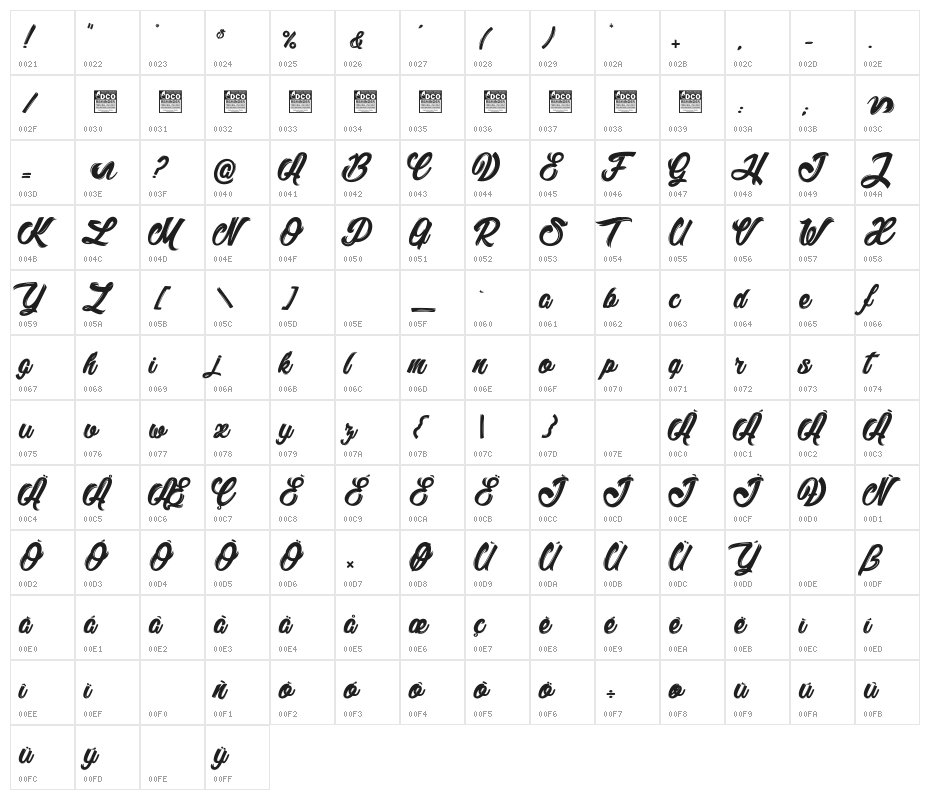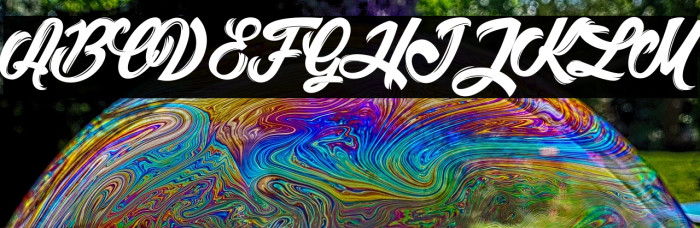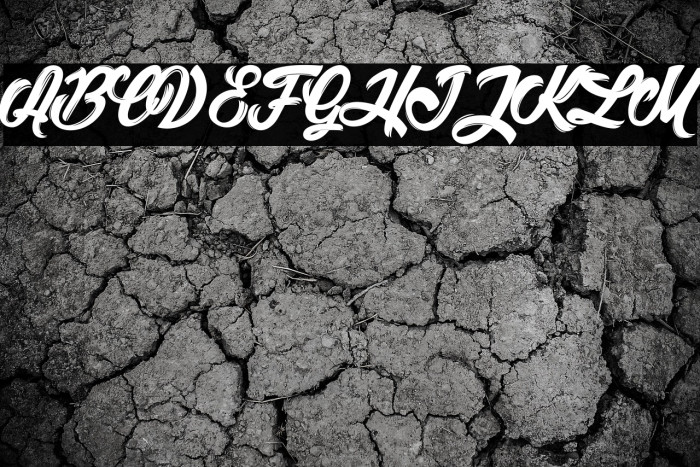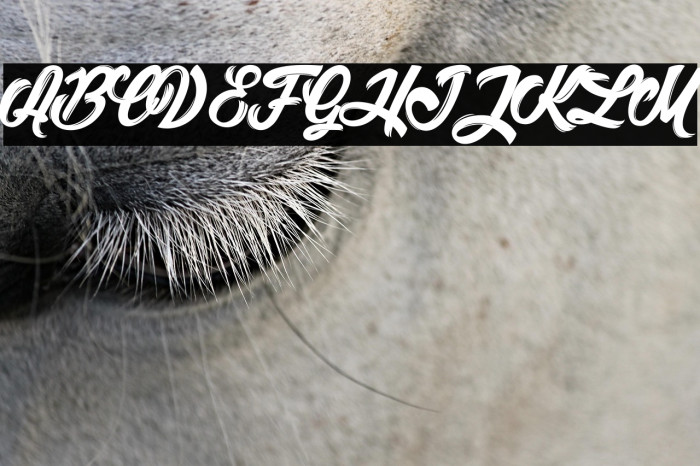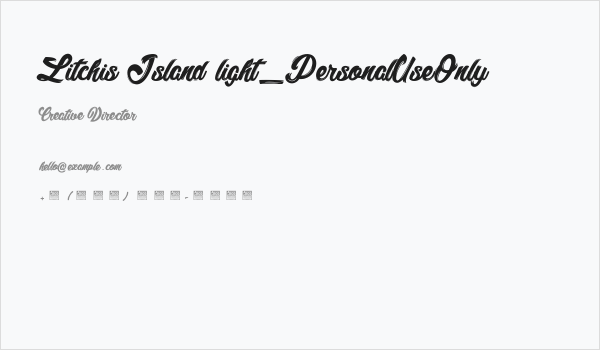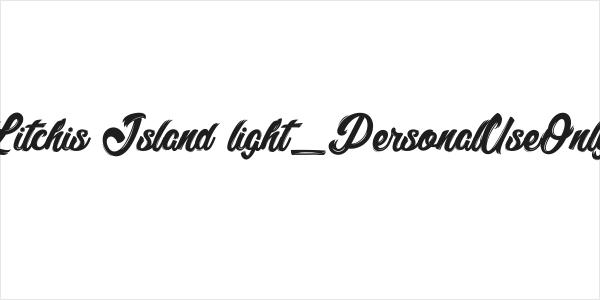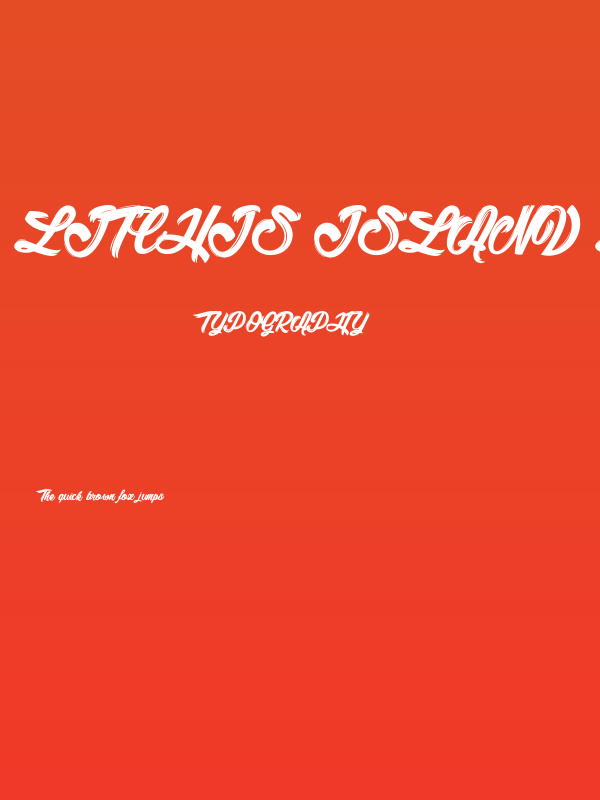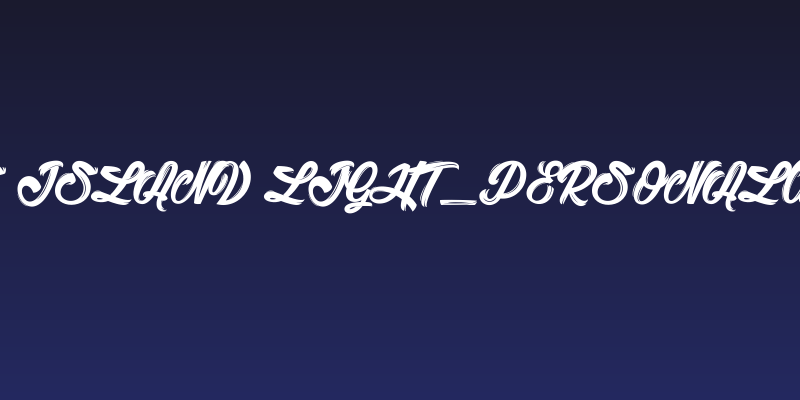
Litchis Island light_PersonalUseOnly Font
Litchis Island light_PersonalUseOnly Description
This font features a bold and dynamic script style, characterized by its flowing, cursive letterforms. The uppercase letters exhibit a strong presence with their thick strokes and elegant curves, while the lowercase letters maintain a consistent rhythm and fluidity. The font's design includes subtle flourishes that enhance its decorative appeal, making it suitable for eye-catching displays. The numerals and special characters are designed to complement the overall aesthetic, maintaining the same bold and expressive style. This font is ideal for projects that require a touch of elegance and flair.